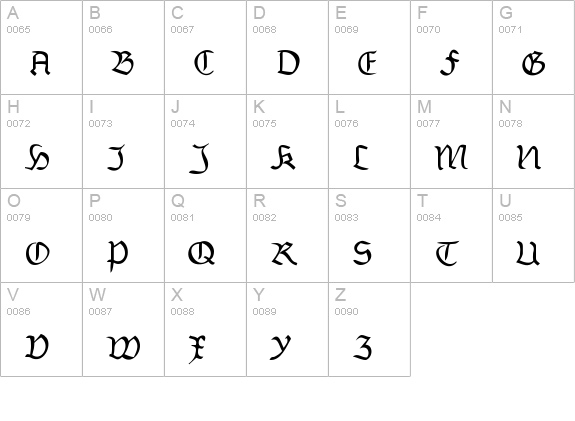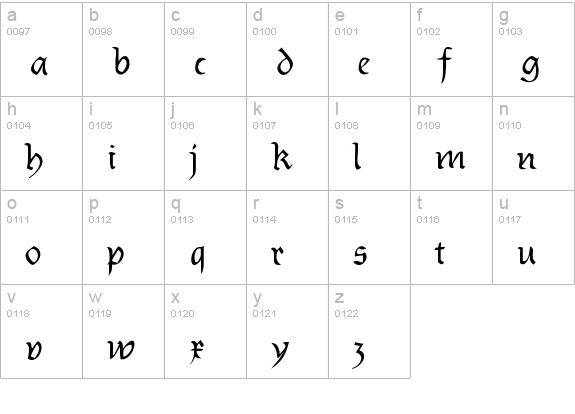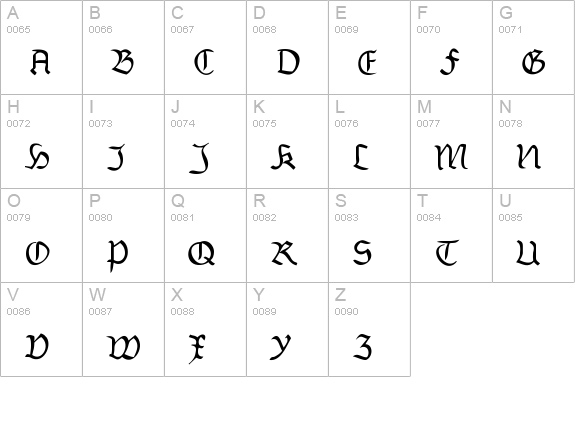
Burtinomatic Font Details
Burtinomatic font is a modern and stylish typeface that exudes sophistication and elegance. With its sleek lines and unique letterforms, this font is perfect for adding a touch of class to any design project. Whether you're creating a logo, branding materials, or a website, Burtinomatic will make your text stand out and captivate your audience. The best part? Burtinomatic font is completely free to download at FontsMarket.com. Yes, you read that right - you can get your hands on this stunning font at no cost at all. So why wait? Elevate your designs today with the beauty and versatility of Burtinomatic font. Download it now and let your creativity soar!